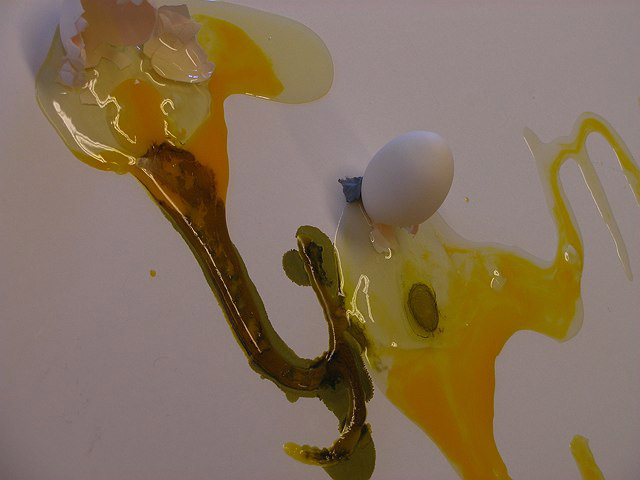
![]() ![]() ![]() 60 participants, two crowded classrooms, 15 typographic stop motion movies made with liquids, just in one day! All very different from each other. All widening the respectives of liquid typography. Here's some impressions while making the movies. Please be patient: final movies soon to be seen here! ![]()